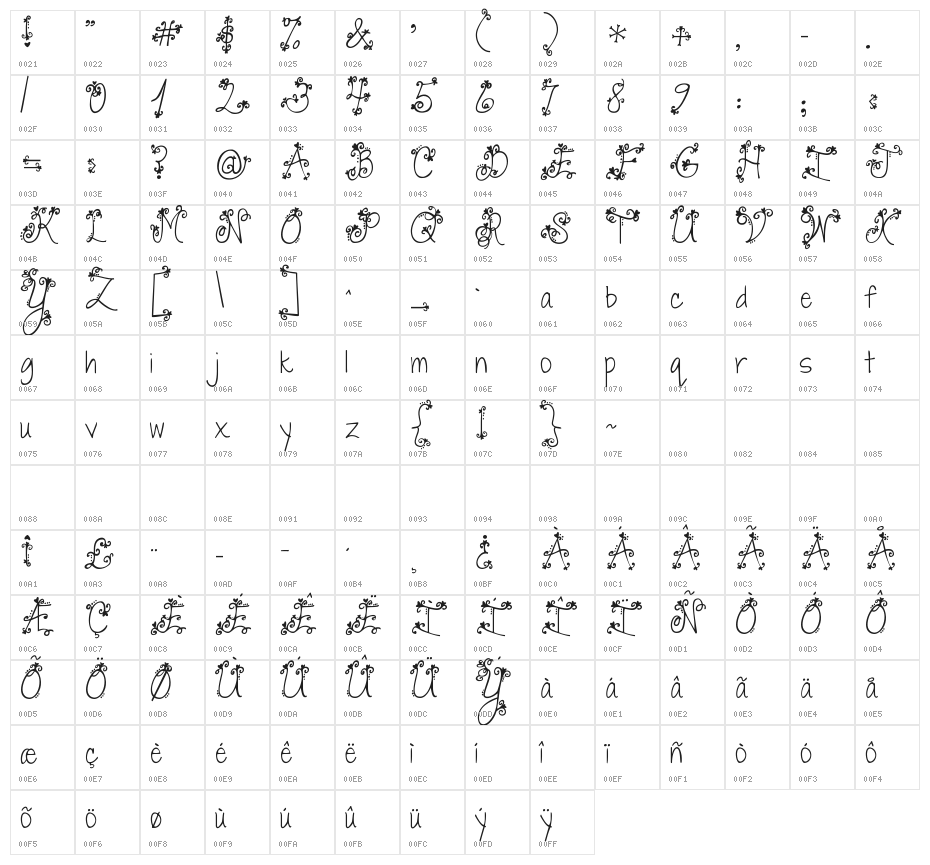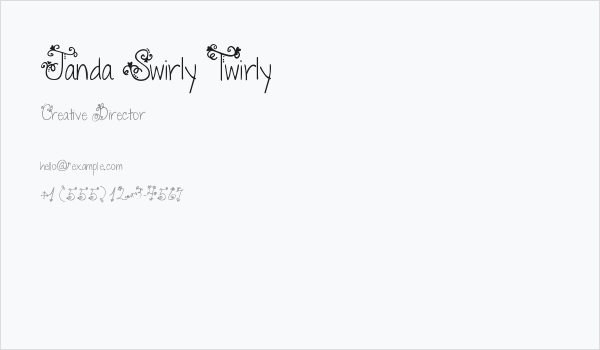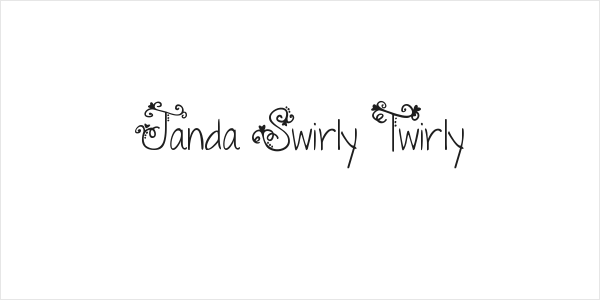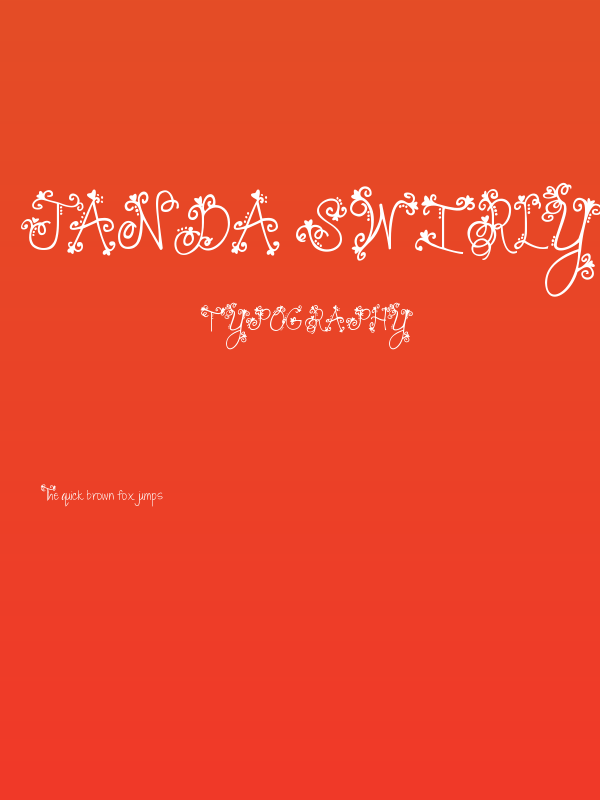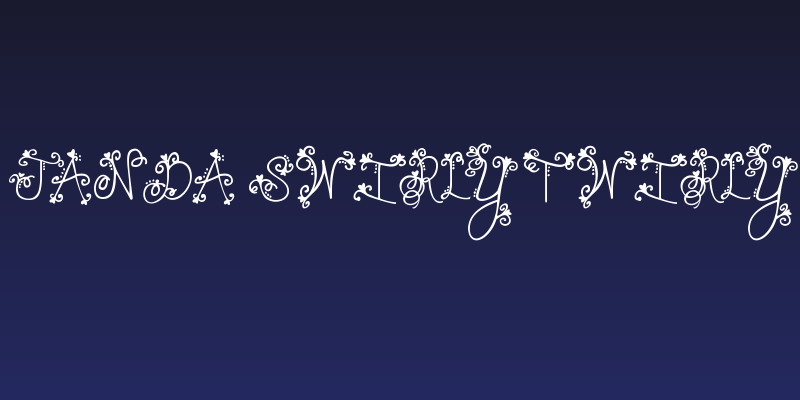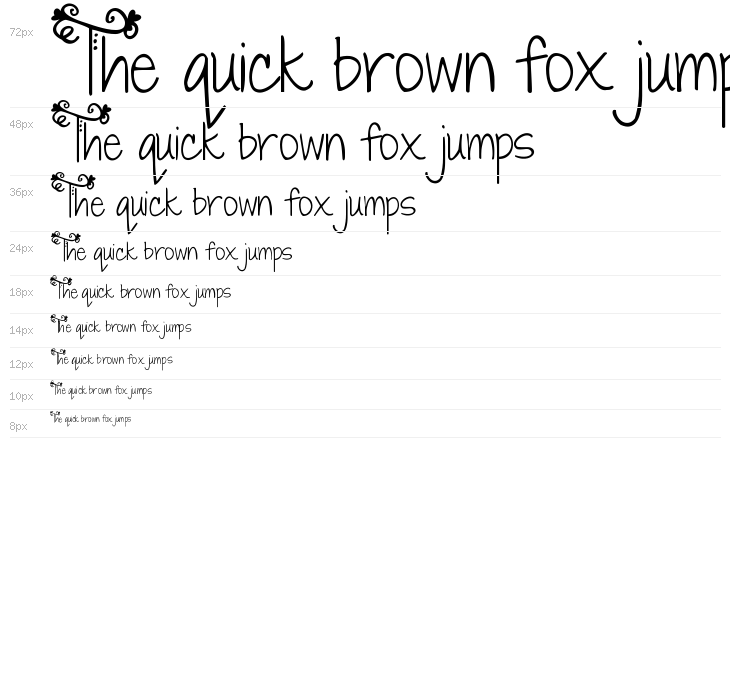
Janda Swirly Twirly Font
Janda Swirly Twirly Description
This font features an elaborate and whimsical design with intricate swirls and decorative elements integrated into each character. The uppercase letters are particularly ornate, with flourishes that extend from the main strokes, creating a playful and artistic appearance. The lowercase letters maintain a more straightforward, yet still playful style, complementing the uppercase with a slightly more subdued flair. Numbers and special characters follow the same decorative theme, making the font cohesive and visually engaging. This font is ideal for projects that require a touch of elegance and creativity, such as invitations, greeting cards, or artistic branding.
| Use Case | Headlines, Artistic projects, Invitations |
| Proposed Projects | Ideal for invitations, greeting cards, artistic branding, and decorative posters. |